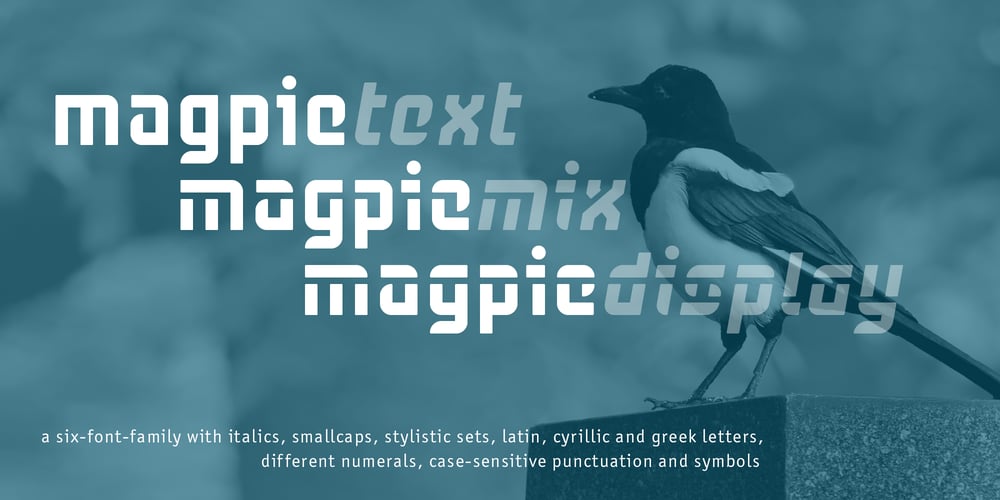
Magpie Font Family was designed by Darius Samek and published by Elster Fonts. Magpie contains 6 styles and family package options. Magpie is a font family consisting of three sub-families with both regular and italic styles.Originally designed on squared paper, over time it has moved further and further away from this rigid grid, although its appearance is still based on it, so it can easily be used for logotypes or headlines with strict grid-based layouts.While Magpie Text is suitable for headlines and short texts, Magpie Display is ideal for logotypes or more playful headlines. Finally, Magpie Mix is a combination of both families. Magpie Text Regular represents stability, Magpie Display Italic is ideal for dynamic logos or headlines.To cover more languages, cyrillic and greek letters were added and Magpie can be used for nearly a hundred languages.In addition to the four common numeral variants, special numerals, punctuations and symbols for all-caps (c2sc) are included. Furthermore case-sensitive punctuations and symbols are available.To expand the typographic possibilities, four stylistic sets, different symbols, forms and standard- and discretionary ligatures have been added.Each Magpie-font contains more than 880 glyphs.